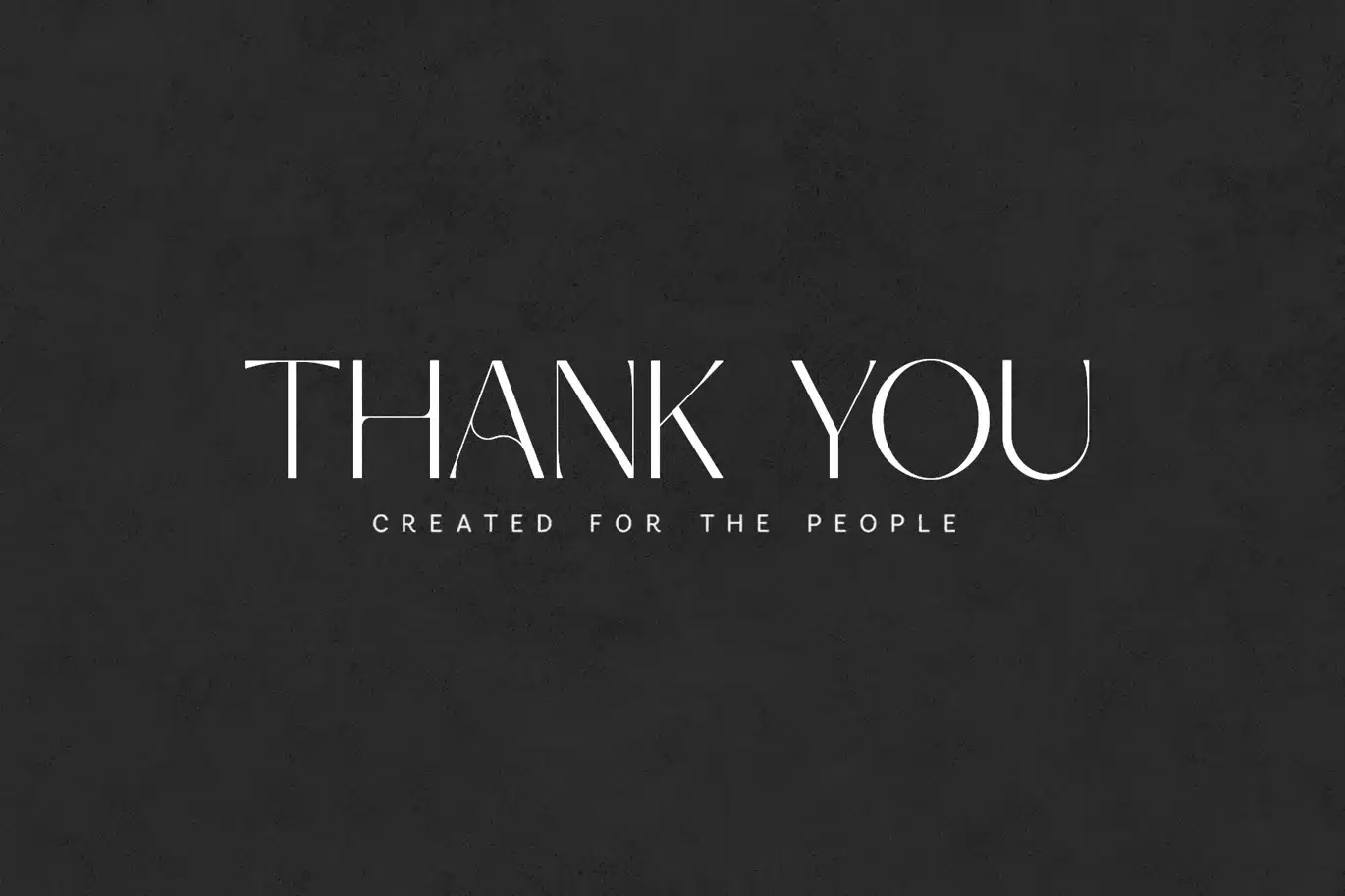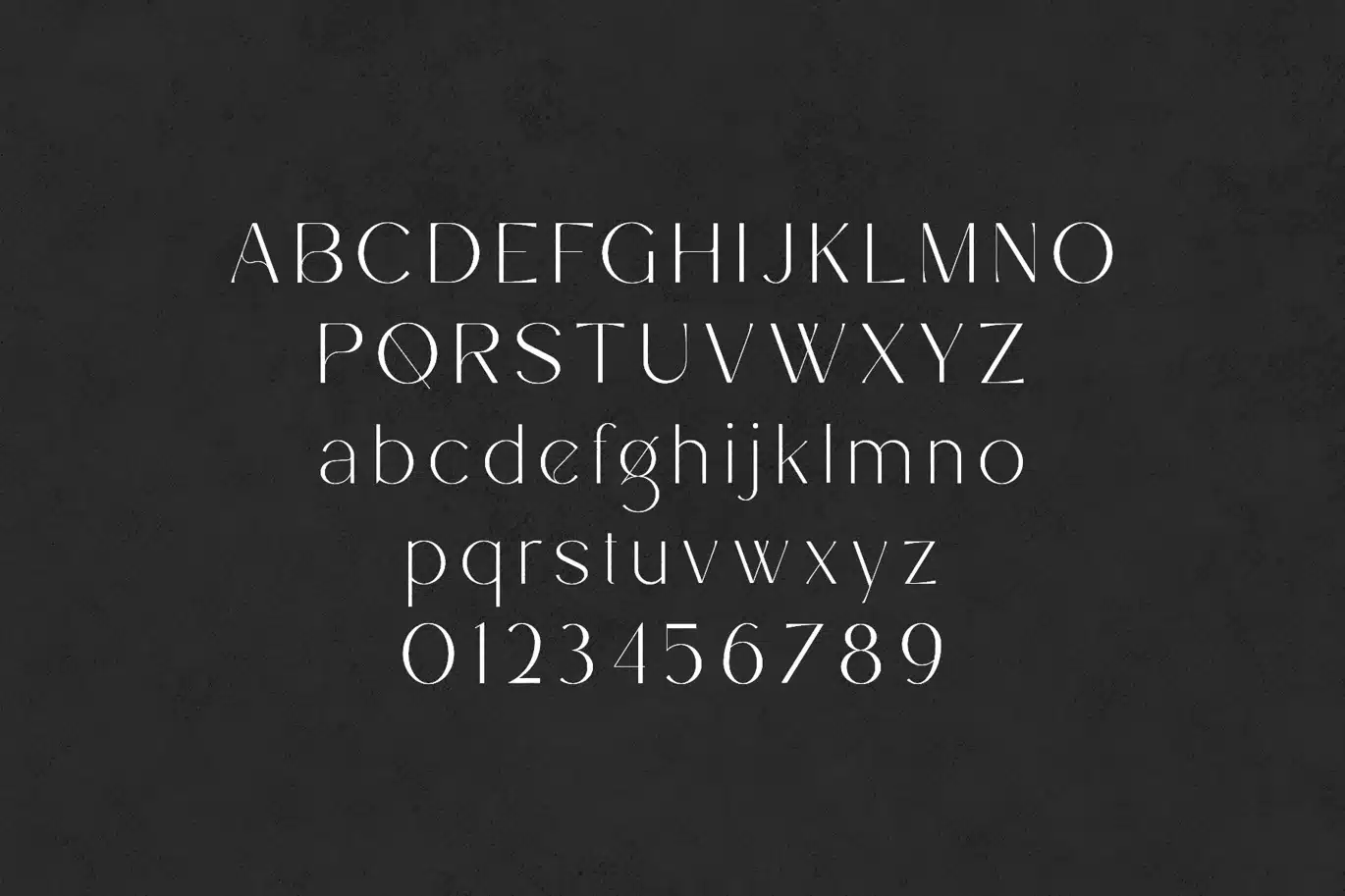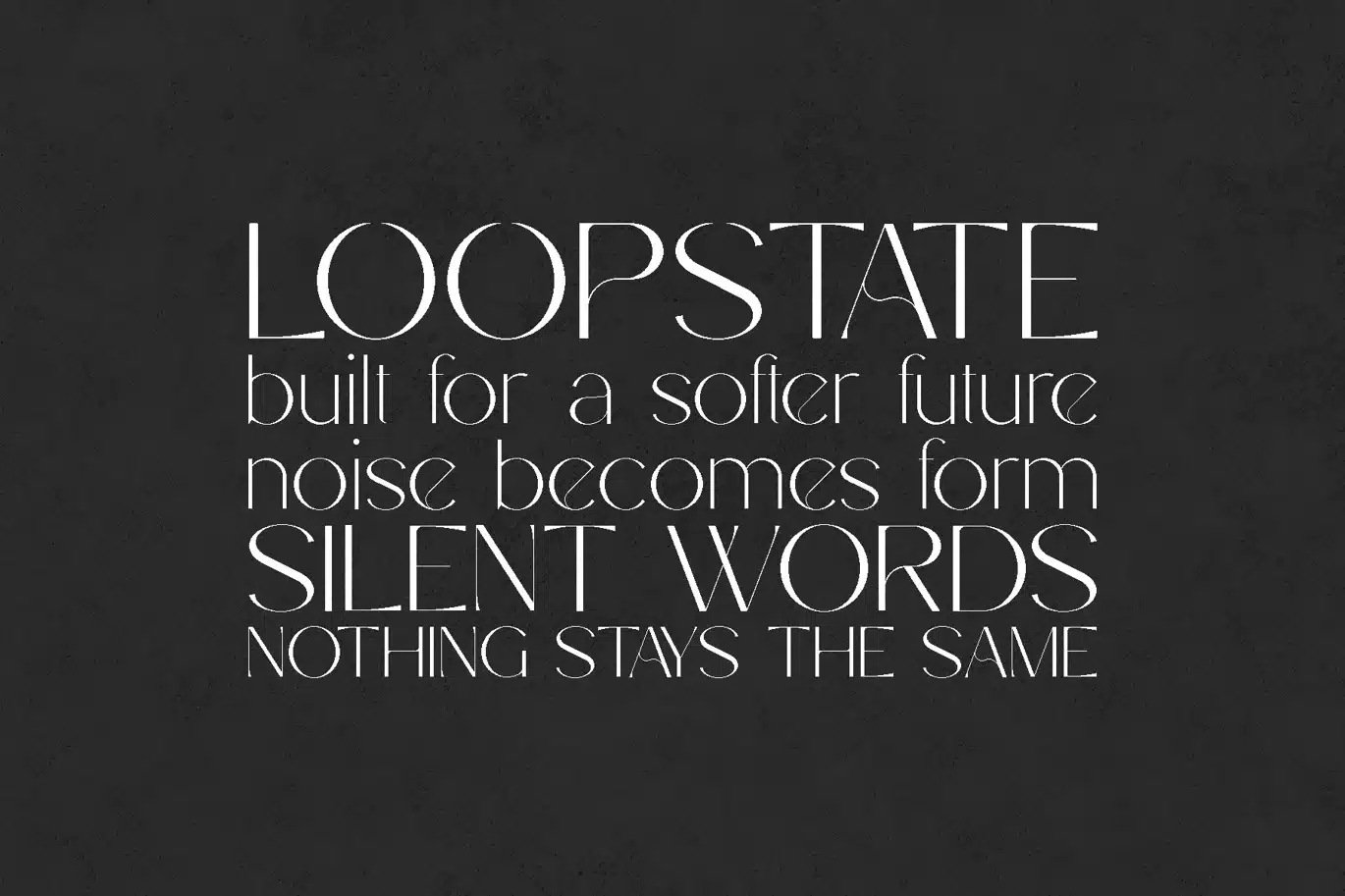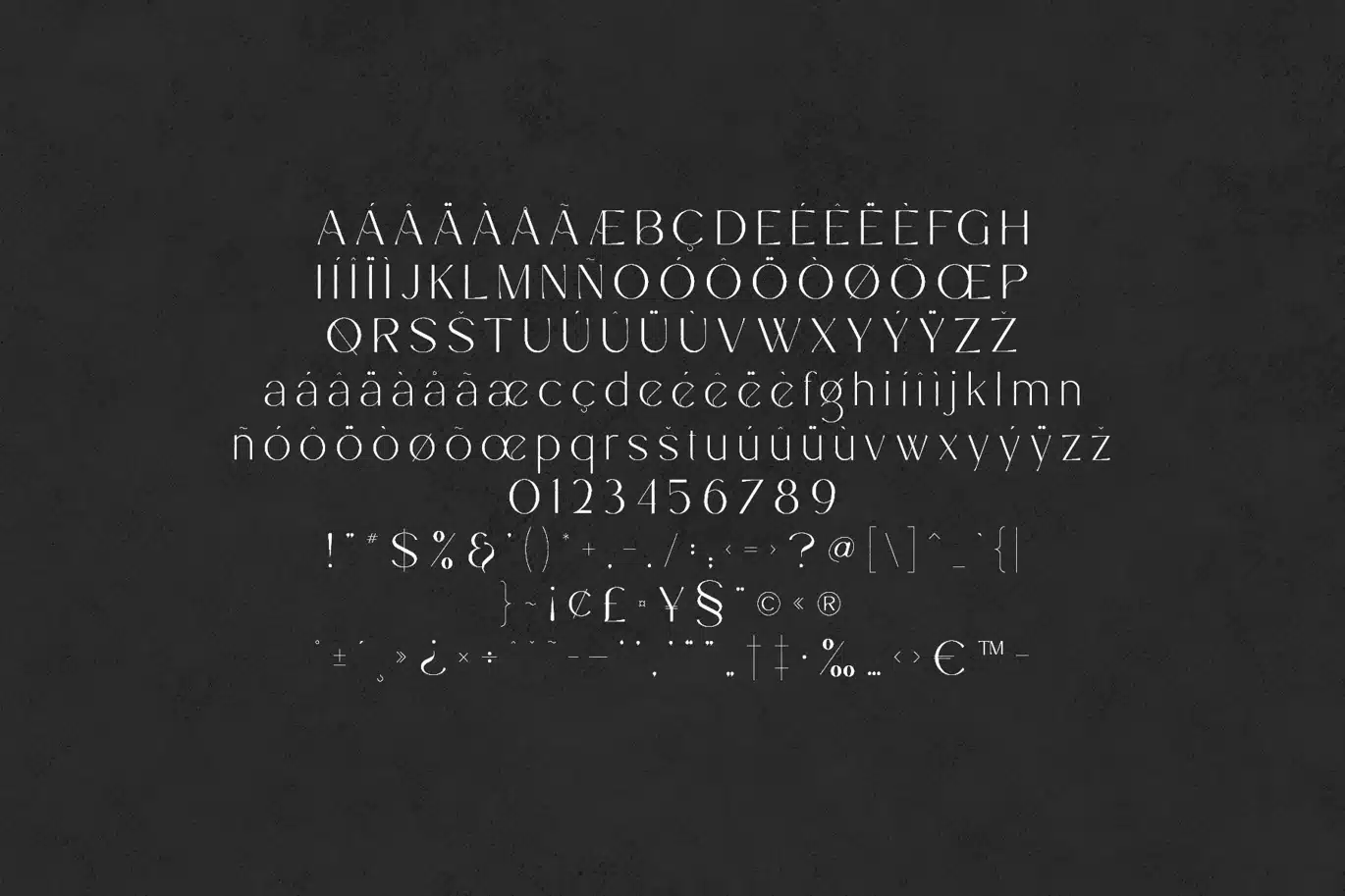
Stefania – Elegant Modern Serif Font
Stefania is a refined modern serif typeface designed with elegance, balance, and subtle artistic details. The font combines minimalist serif structure with soft decorative curves, creating a sophisticated typographic voice that feels both contemporary and timeless.
The design focuses on thin elegant strokes, graceful proportions, and carefully crafted letterforms that create a visually calm and refined appearance. Stefania introduces delicate flowing details within select characters, adding personality while maintaining a clean editorial structure.
This balance between modern minimalism and subtle decorative expression allows Stefania to work beautifully across a wide variety of typography compositions where clarity and elegance are essential.
The typeface was designed to feel light, stylish, and visually harmonious, allowing text to breathe naturally on the page. Its refined structure makes it suitable for both large display typography and carefully composed typographic layouts.
Stefania is particularly well suited for projects such as:
• editorial layouts
• magazine typography
• luxury branding
• elegant logo design
• modern visual identities
• packaging design
• sophisticated typography compositions
• fashion-inspired graphic layouts
The carefully crafted uppercase characters create strong visual presence, while the lowercase letters maintain smooth rhythm and readability. Together they form a typeface that feels balanced, modern, and expressive.
Stefania includes uppercase letters, lowercase letters, numbers, punctuation, symbols, and extensive multilingual language support, allowing designers to work across many languages and international projects.
With its elegant structure, refined details, and modern serif character, Stefania brings a sense of quiet sophistication and contemporary typographic beauty to creative design projects.